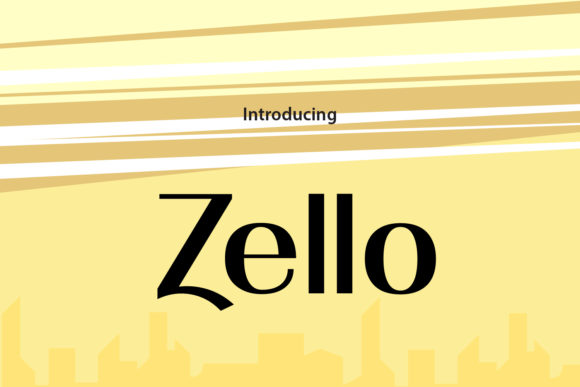
Zello: The Quintessential Font for a Touch of Modern Elegance
Zello, a captivating sans serif font, exudes a timeless appeal that will effortlessly elevate your designs. Its clean lines and sophisticated curves dance together in perfect harmony, creating an aesthetic that is both alluring and professional.
Immerse yourself in the world of Zello, where simplicity meets sophistication. Each letterform is meticulously crafted, showcasing a graceful arrangement that will leave a lasting impression on your audience. Whether you're crafting a timeless logo, an eye-catching website, or a memorable print design, Zello is the font that will make your creations shine.
Unleash your creativity and explore the boundless possibilities that Zello offers. Its versatility knows no bounds, making it the perfect choice for a wide range of design projects. From fashion-forward boutiques to cutting-edge tech companies, Zello's modern aesthetic will seamlessly complement any brand identity.
Indulge in the beauty of Zello and elevate your designs to the next level. Its clean lines and sophisticated curves will captivate your audience, leaving an unforgettable mark on their minds. Let Zello be the font that empowers you to create designs that speak volumes and leave a lasting legacy.